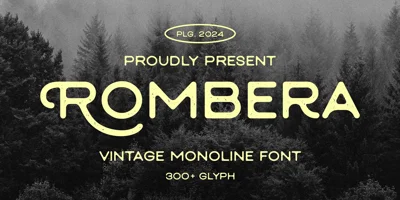
The Rombera Font is ideal for logos, apparel, labels, posters, signage, and packaging designs.
This font is exciting because its fancy vintage monoline style, with letterpress and inky aesthetics, blends modern calligraphy for a playful, retro vibe.
The Rombera Font family includes Regular and Distressed styles, featuring over 350 glyphs with OpenType features for versatile designs.
Unlock the charm of vintage typography with the Rombera Font, a typeface that captures the essence of retro signage and modern calligraphy. Perfect for designers seeking a unique, handcrafted look, this all-caps font shines in branding, apparel, and promotional materials. Its monoline design, inspired by letterpress techniques, adds a nostalgic yet stylish edge to logos, posters, and packaging.
The Rombera Font excels in both digital and print applications. Its distressed variant adds a rugged, authentic feel to streetwear labels or café signage, while the regular style ensures clean, impactful headlines. With over 350 glyphs, including OpenType features, this font allows you to mix and match characters for playful, custom designs. It pairs effortlessly with bold or minimalist elements, enhancing creative flexibility.
The Rombera Font family, with its Regular and Distressed variants, supports a wide range of projects, from urban merchandise to outdoor adventure branding. For those exploring its potential, the Rombera Font offers a chance to test its vintage appeal before purchasing for commercial use.